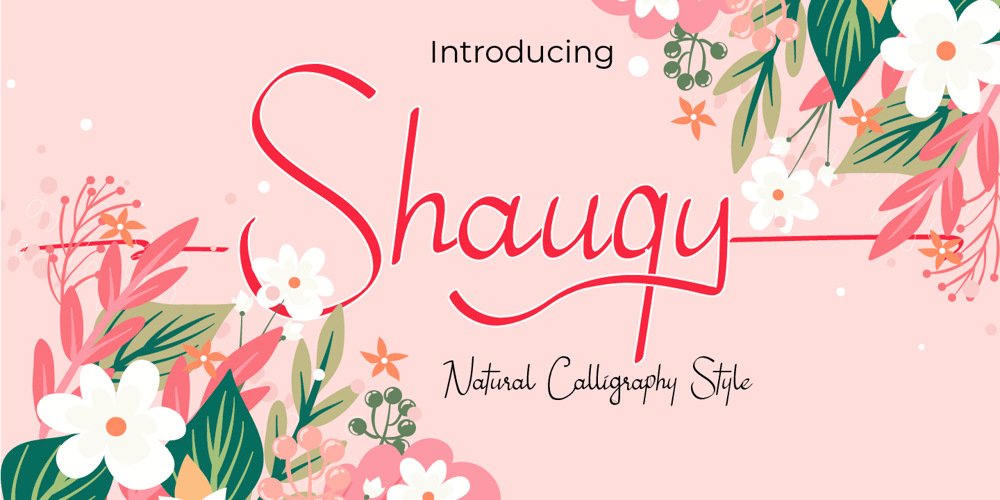
Shauqy Font Family was designed by Mohamad Candirah and published by MC Creative. Shauqy contains 1 styles and family package options. Shauqy is a font with a modern Calligraphy look and energetic. With extra attention to quick strokes and sharp details, is ready and perfectly fit for your logo designs, music projects & social media posts, event poster, brand imagery, product packaging, handwritten quotes, merchandise, etc.